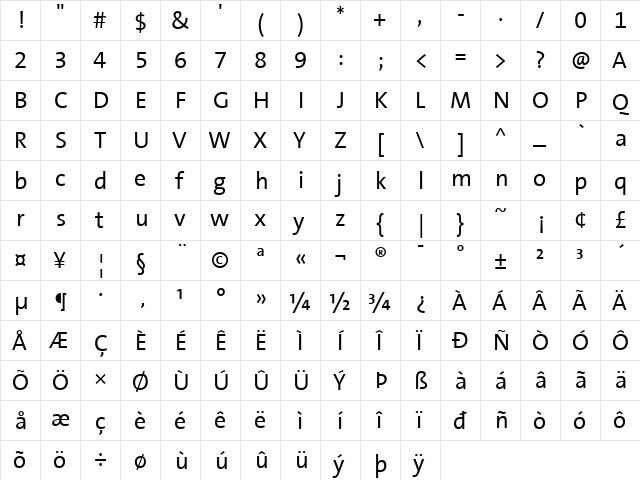
TheSansCorrespondence Regular
| Foundry | Luc[as] de Groot developer TheTypes bv, Amsterdam, published by FontShop International for FontFont release |
Design Context for TheSansCorrespondence Typeface
TheSansCorrespondence is a composed and adaptable typeface that performs quietly and consistently across a wide range of design contexts.